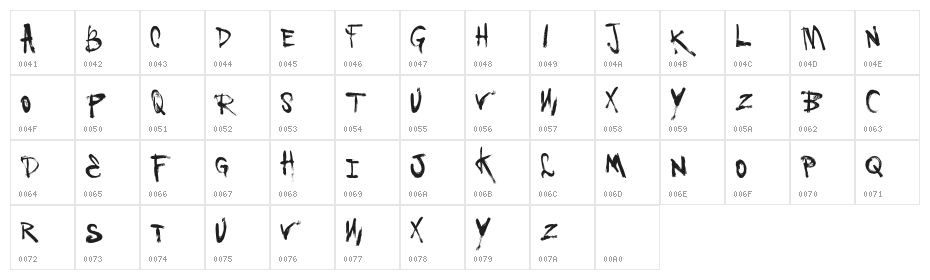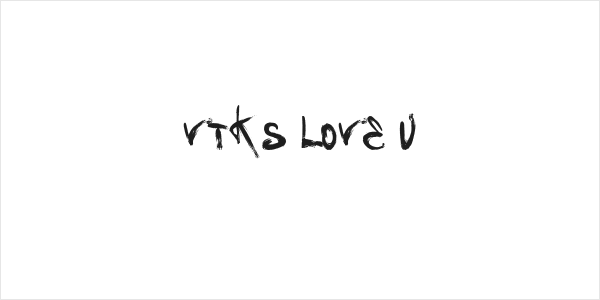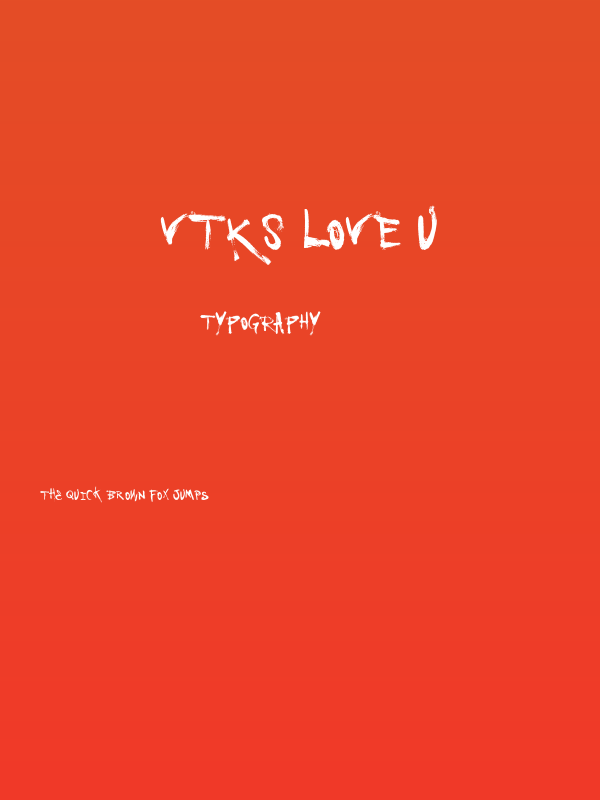
Vtks Love U Font
Vtks Love U Description
This font features a bold and expressive style, reminiscent of brush strokes with a raw, artistic flair. The characters are unevenly weighted, giving them a dynamic and energetic appearance. The uppercase letters are particularly striking, with exaggerated curves and angles that suggest movement and spontaneity. The lowercase letters maintain this expressive quality, though they are slightly more restrained. The overall texture is rough, with a hand-drawn feel that adds to its unique character. This font is ideal for projects that require a bold statement or a creative touch.
| Overall Style | Artistic, Expressive, Dynamic |
| Proposed Projects | Ideal for posters, album covers, artistic branding, and creative advertising campaigns. |